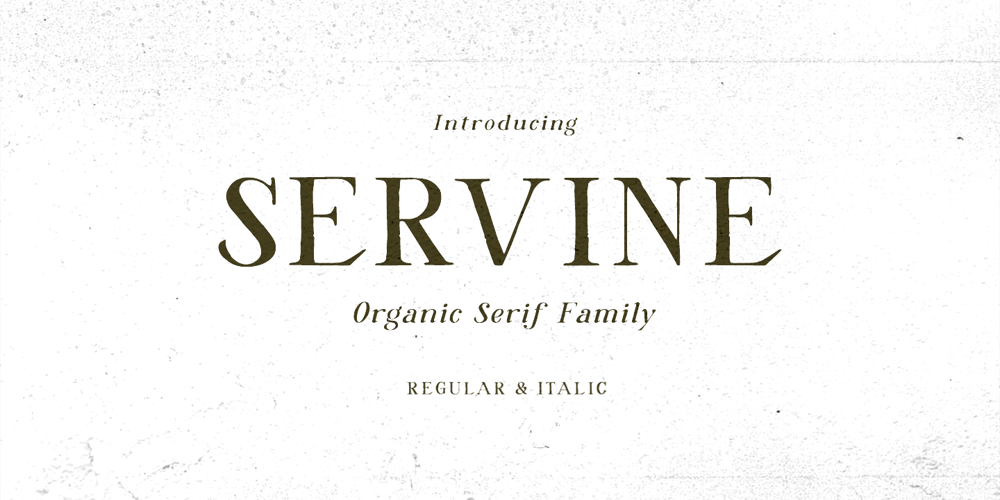
Servine Font Family was designed by Sarid Ezra, Dzikrul Aulia and published by Bale Type. Servine contains 2 styles and family package options. Servine is an organic serif font family that contains regular and italic style. With rough and natural appeal, you can make your project looks more handmade and rustic. You can use this font for any purposes such as quotes, wedding invitation, apothecary label, or logotype. This font also support multi language!